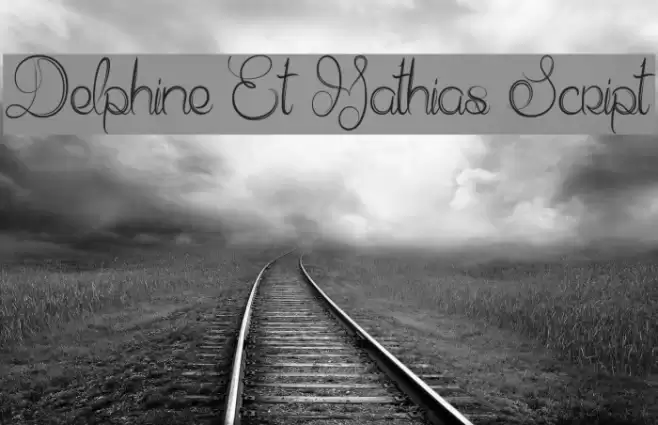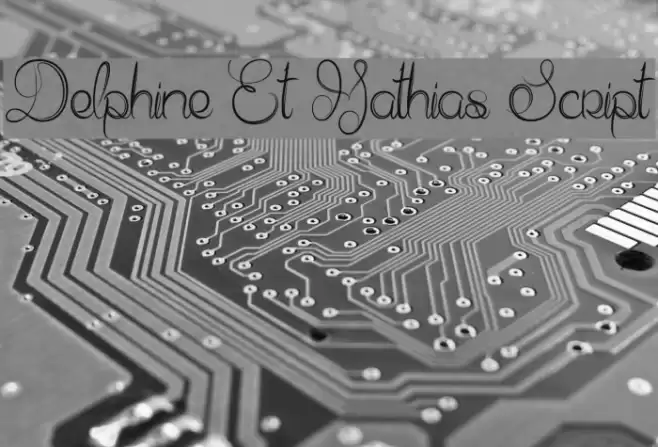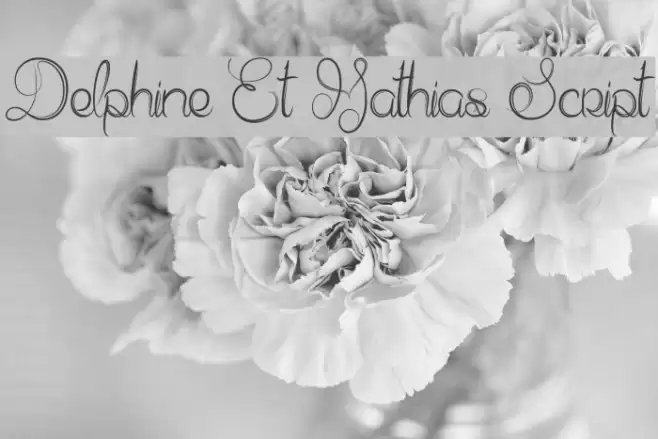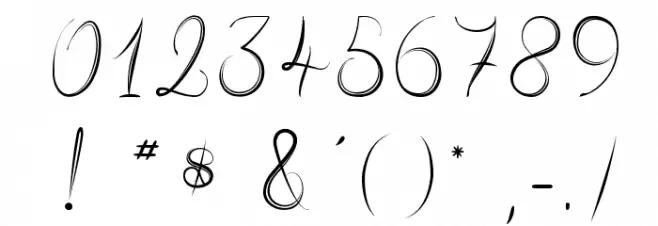
Delphine Et Mathias Script Font
Delphine Et Mathias Script Description
This elegant script font features intricate, flowing lines and a sophisticated style. The uppercase letters are adorned with delicate swirls and loops, giving them a decorative and artistic flair. The lowercase letters maintain a consistent flow, with smooth curves and a graceful appearance. Numbers and special characters are designed to match the overall aesthetic, with a touch of whimsy and elegance. The font's thin strokes and high contrast between thick and thin lines add to its refined and delicate look, making it suitable for formal and decorative uses.
An elegant script font with intricate swirls and high contrast, perfect for decorative purposes from Uncategorized fonts.
- Proposed Projects: Ideal for wedding invitations, elegant branding, greeting cards, and decorative headlines.
- Weight: Light
- Use Case: Logos, Invitations, Decorative text